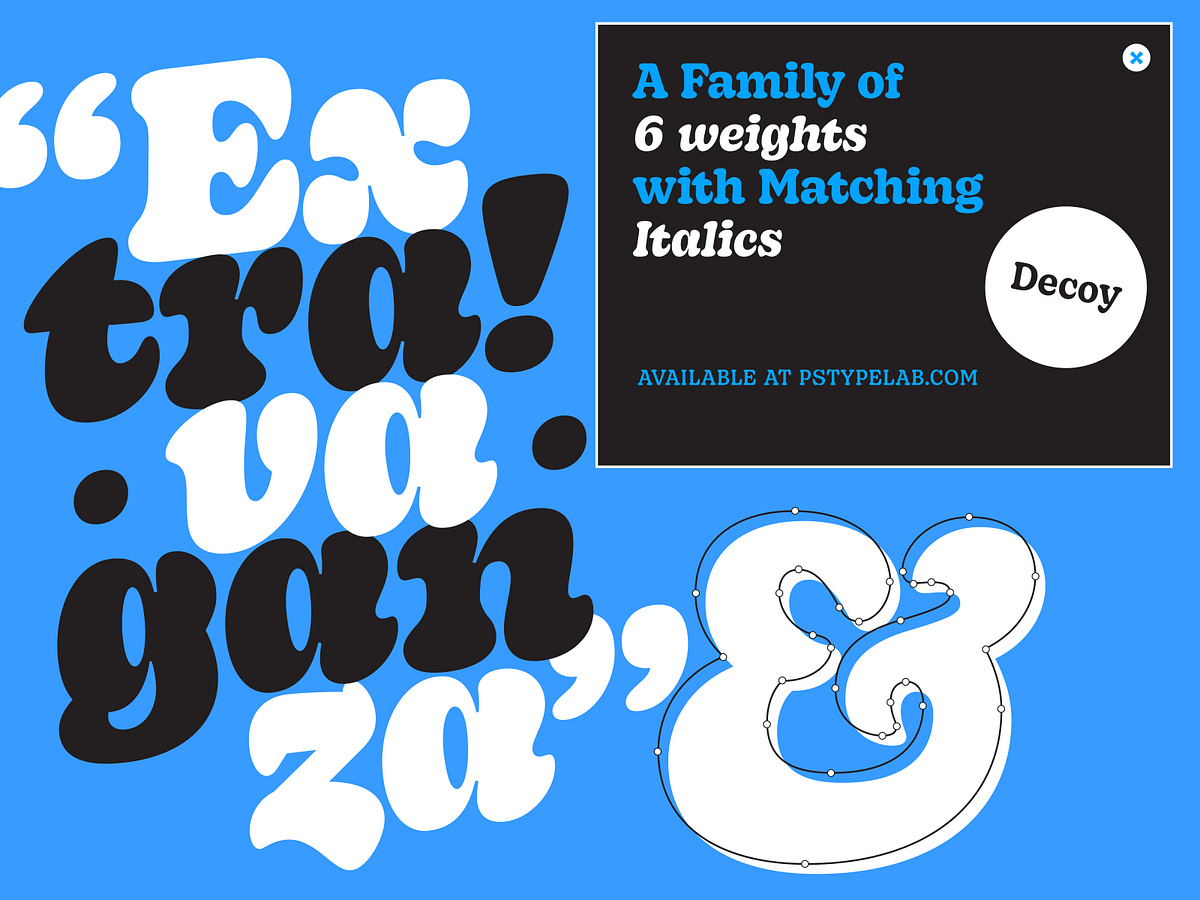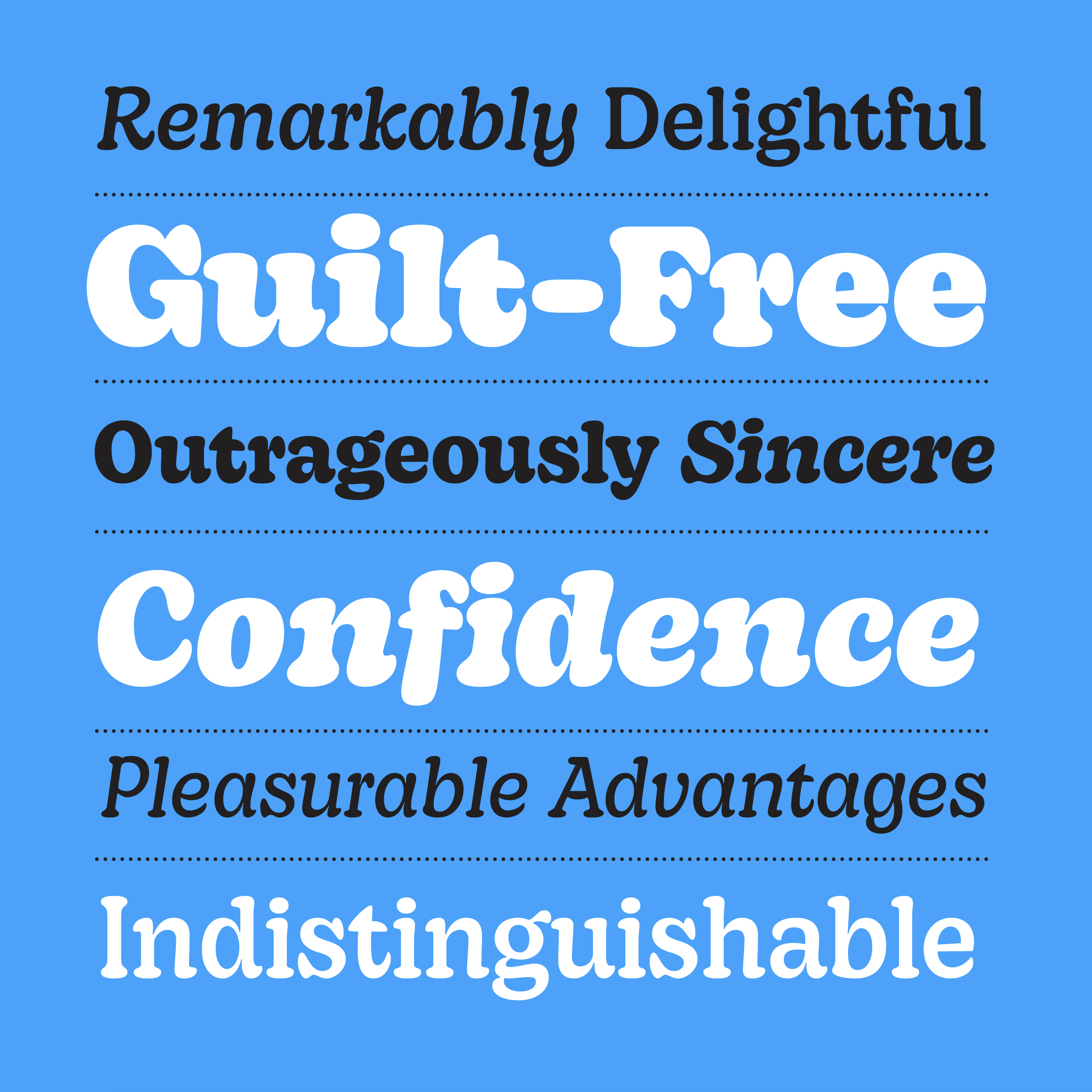
Decoy Font Download . Decoy is a soft, inky serif that does not shy away from. A bold, rounded serif font with a playful and robust style. This font features bold, rounded serifs with a playful and robust. A serif typeface with 12 styles, available from adobe fonts for sync and web use. A remarkably delightful typeface of 6 weights with matching italics. Explore decoy designed by mark caneso at adobe fonts. 28,650 downloads (3 yesterday) 100% free. This font features bold, rounded serifs with a classic and slightly. A bold serif font with rounded serifs and a classic, playful style.
This font features bold, rounded serifs with a classic and slightly. A remarkably delightful typeface of 6 weights with matching italics. A serif typeface with 12 styles, available from adobe fonts for sync and web use. 28,650 downloads (3 yesterday) 100% free. A bold, rounded serif font with a playful and robust style. A bold serif font with rounded serifs and a classic, playful style. This font features bold, rounded serifs with a playful and robust. Explore decoy designed by mark caneso at adobe fonts. Decoy is a soft, inky serif that does not shy away from.
Decoy Font Download 28,650 downloads (3 yesterday) 100% free. A remarkably delightful typeface of 6 weights with matching italics. Decoy is a soft, inky serif that does not shy away from. A serif typeface with 12 styles, available from adobe fonts for sync and web use. A bold serif font with rounded serifs and a classic, playful style. This font features bold, rounded serifs with a classic and slightly. 28,650 downloads (3 yesterday) 100% free. A bold, rounded serif font with a playful and robust style. This font features bold, rounded serifs with a playful and robust. Explore decoy designed by mark caneso at adobe fonts.
Decoy Font Download This font features bold, rounded serifs with a classic and slightly. Explore decoy designed by mark caneso at adobe fonts. A bold, rounded serif font with a playful and robust style. This font features bold, rounded serifs with a playful and robust. 28,650 downloads (3 yesterday) 100% free. Decoy is a soft, inky serif that does not shy away from.. Decoy Font Download.
Decoy free font Decoy Font Download This font features bold, rounded serifs with a classic and slightly. This font features bold, rounded serifs with a playful and robust. A bold, rounded serif font with a playful and robust style. A remarkably delightful typeface of 6 weights with matching italics. Explore decoy designed by mark caneso at adobe fonts. A bold serif font with rounded serifs and. Decoy Font Download.
Decoy Font Download Free for Desktop & font Decoy Font Download This font features bold, rounded serifs with a classic and slightly. A remarkably delightful typeface of 6 weights with matching italics. This font features bold, rounded serifs with a playful and robust. Decoy is a soft, inky serif that does not shy away from. Explore decoy designed by mark caneso at adobe fonts. A serif typeface with 12 styles, available. Decoy Font Download.
Decoy free font Decoy Font Download A bold, rounded serif font with a playful and robust style. A serif typeface with 12 styles, available from adobe fonts for sync and web use. This font features bold, rounded serifs with a classic and slightly. Explore decoy designed by mark caneso at adobe fonts. Decoy is a soft, inky serif that does not shy away from. A bold. Decoy Font Download.
Decoy — PSTL Decoy Font Download A remarkably delightful typeface of 6 weights with matching italics. This font features bold, rounded serifs with a playful and robust. A bold serif font with rounded serifs and a classic, playful style. A serif typeface with 12 styles, available from adobe fonts for sync and web use. This font features bold, rounded serifs with a classic and slightly. A. Decoy Font Download.
Decoy font Font Tr Decoy Font Download A serif typeface with 12 styles, available from adobe fonts for sync and web use. 28,650 downloads (3 yesterday) 100% free. This font features bold, rounded serifs with a classic and slightly. A bold serif font with rounded serifs and a classic, playful style. This font features bold, rounded serifs with a playful and robust. Decoy is a soft, inky. Decoy Font Download.
Decoy is on AdobeFonts Behance Decoy Font Download A bold, rounded serif font with a playful and robust style. A remarkably delightful typeface of 6 weights with matching italics. Decoy is a soft, inky serif that does not shy away from. This font features bold, rounded serifs with a playful and robust. 28,650 downloads (3 yesterday) 100% free. Explore decoy designed by mark caneso at adobe fonts. This. Decoy Font Download.
ps type (was ppwrkstudio) Decoy Font Download A serif typeface with 12 styles, available from adobe fonts for sync and web use. This font features bold, rounded serifs with a classic and slightly. 28,650 downloads (3 yesterday) 100% free. Explore decoy designed by mark caneso at adobe fonts. A bold serif font with rounded serifs and a classic, playful style. Decoy is a soft, inky serif that. Decoy Font Download.
The Decoy 20mm Embroidery Font Embroidery Decoy Font Download Explore decoy designed by mark caneso at adobe fonts. Decoy is a soft, inky serif that does not shy away from. A remarkably delightful typeface of 6 weights with matching italics. A bold serif font with rounded serifs and a classic, playful style. A bold, rounded serif font with a playful and robust style. This font features bold, rounded serifs. Decoy Font Download.